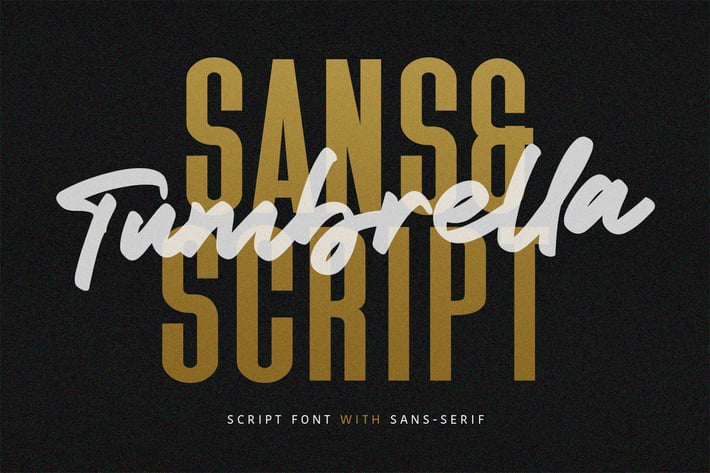
Tumbrella - Script Sans Font Duo
Give your designs an authentic handcrafted feel. Tumbrella Script Sans Font Duo is perfectly suited to signature, stationery, logo, typography quotes, magazine or book cover, website header, clothing, branding, packaging design and more.